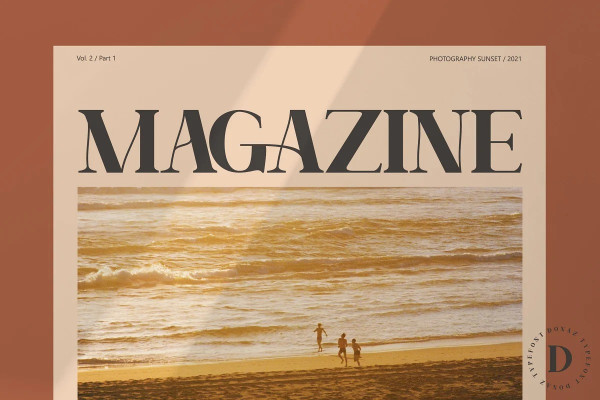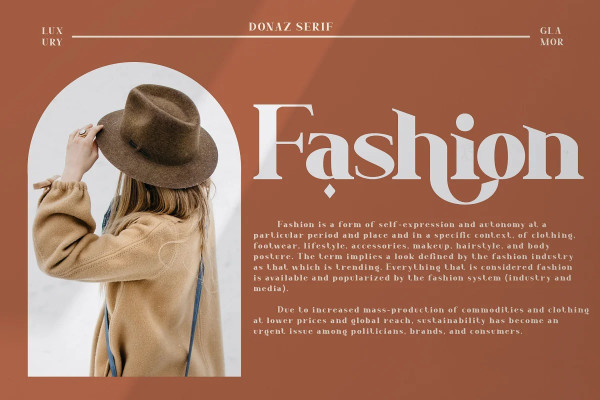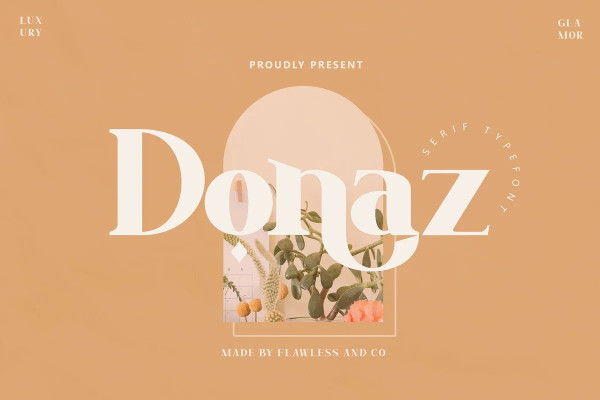
Donaz Font
Donaz Font, feels playfully nostalgic and delivers an incredible vintage aesthetic. Use this serif font to add that special retro touch to any design idea you can think of!